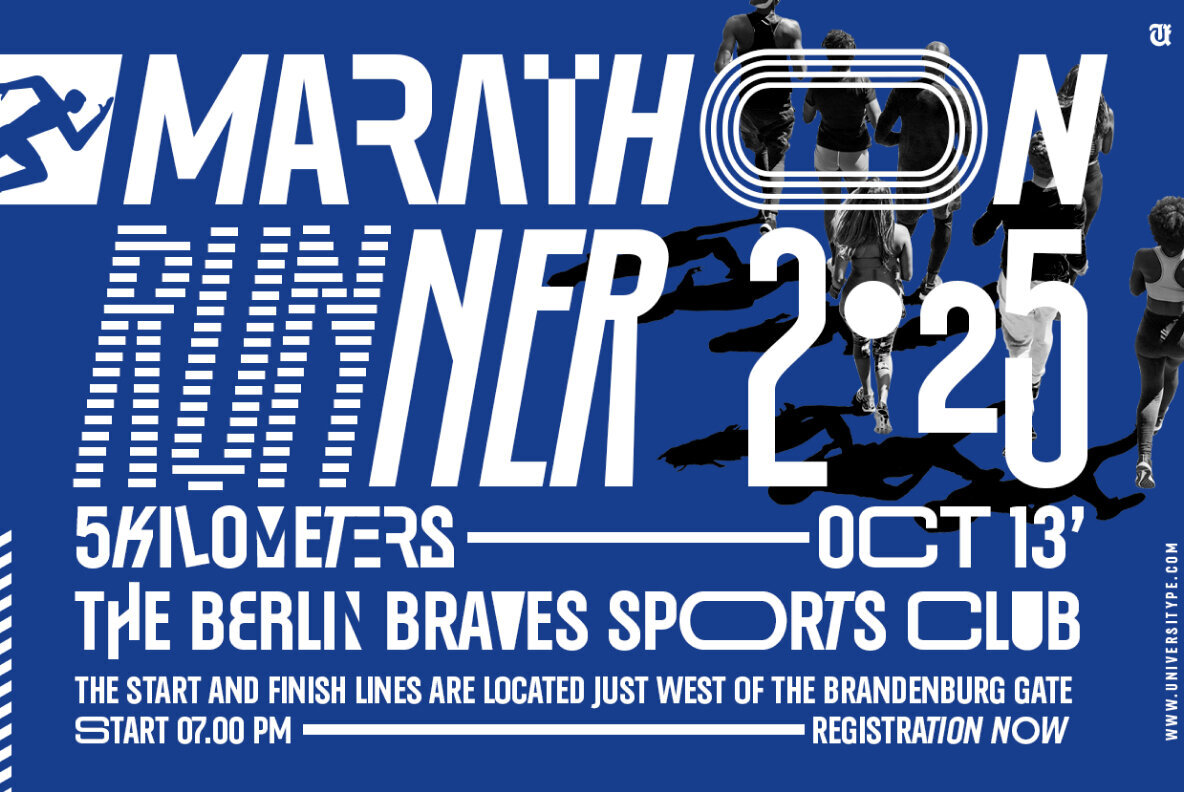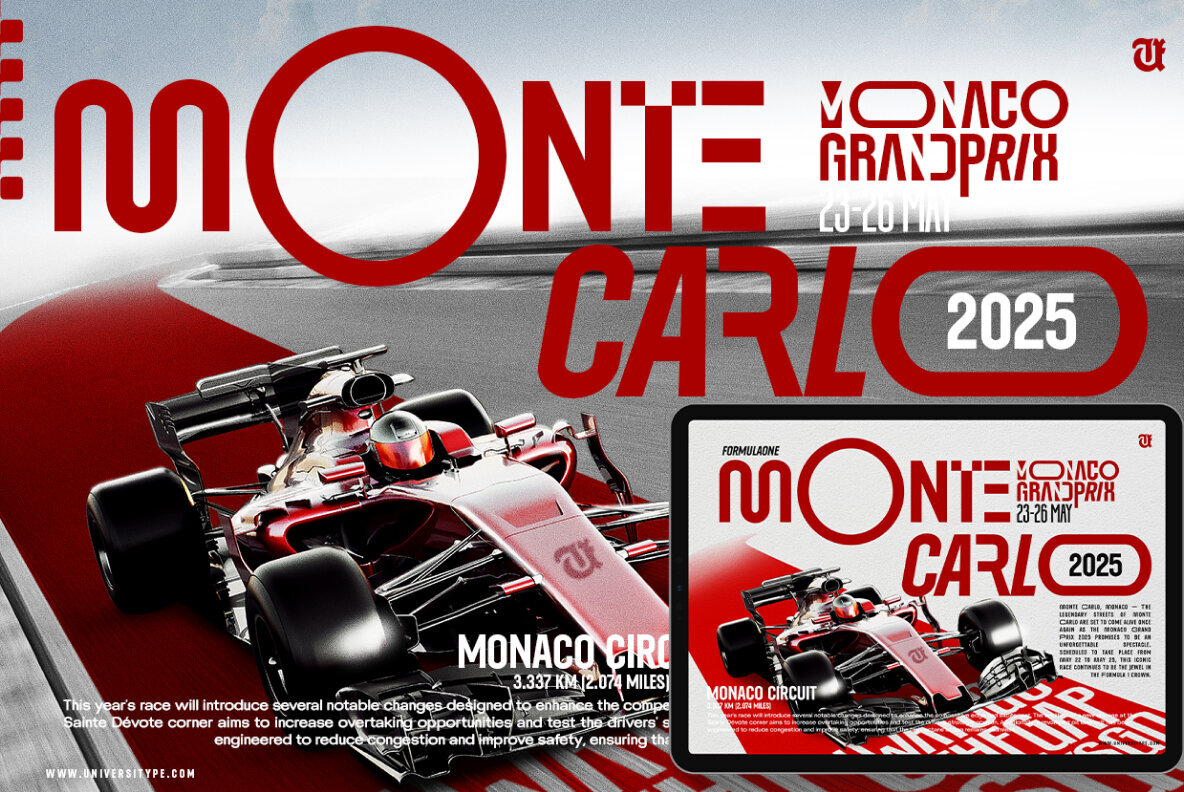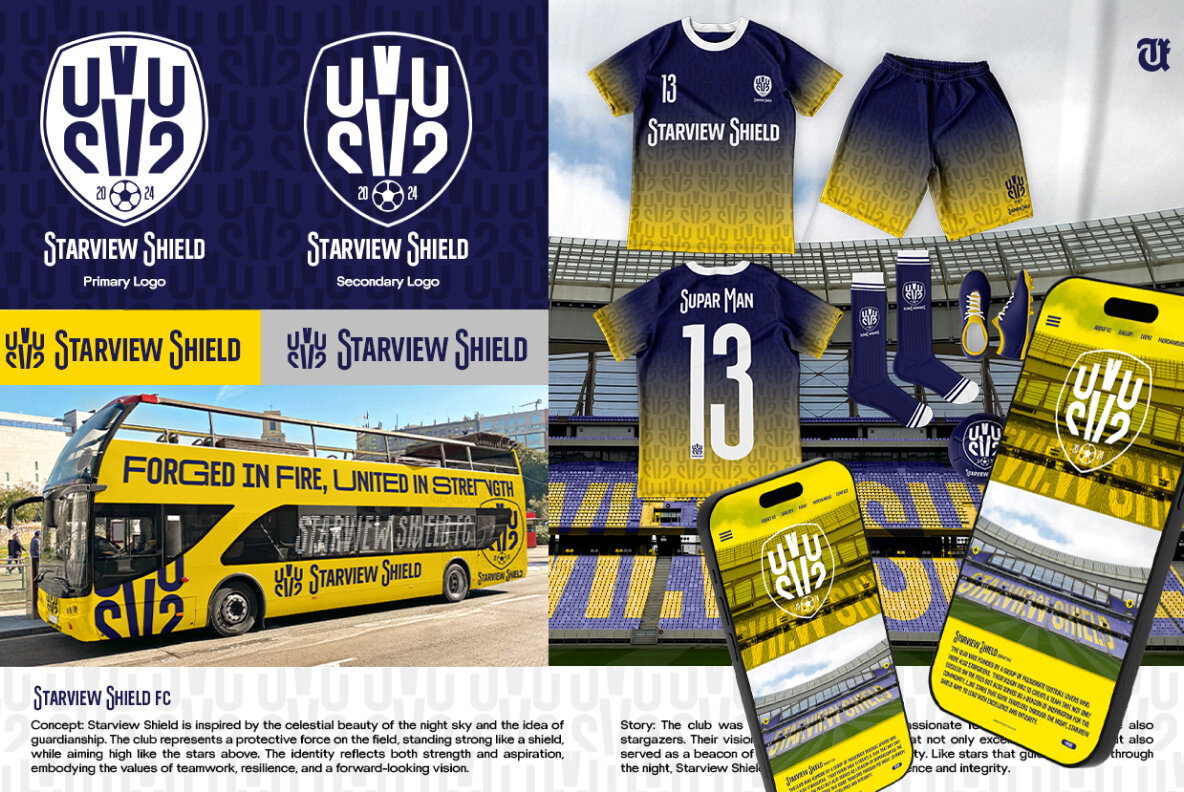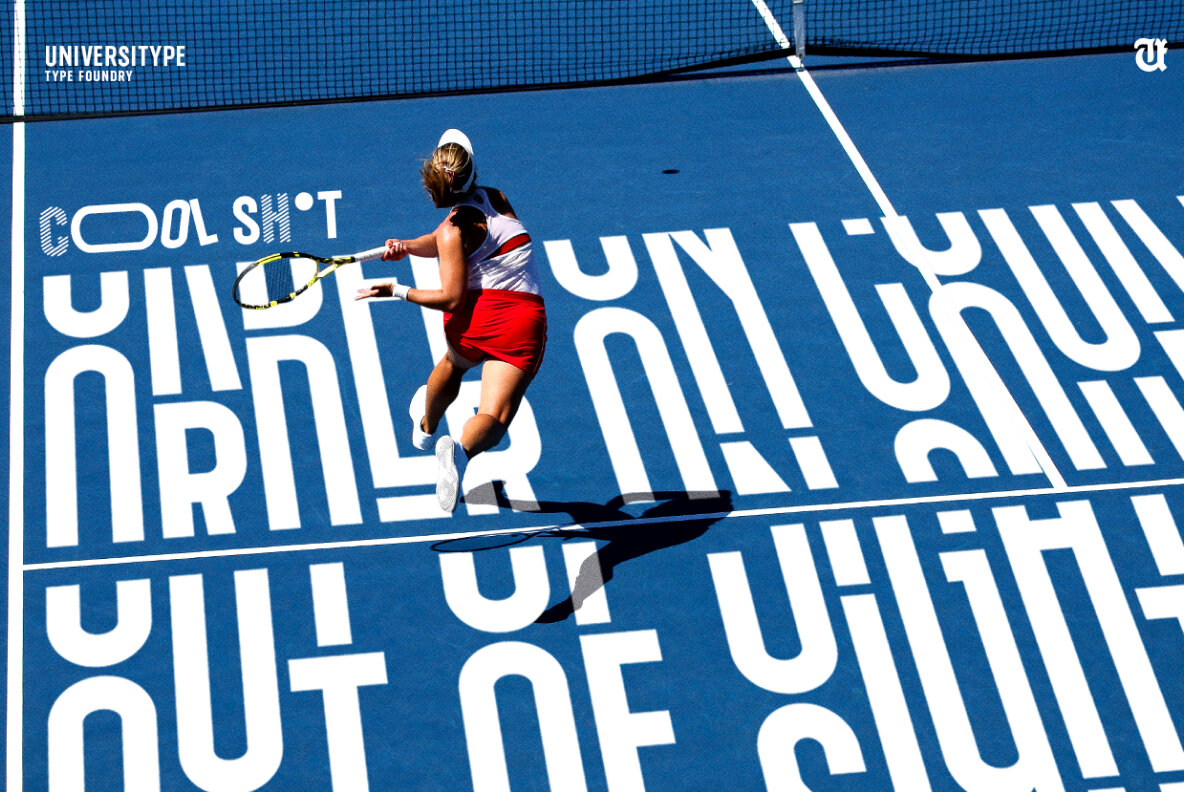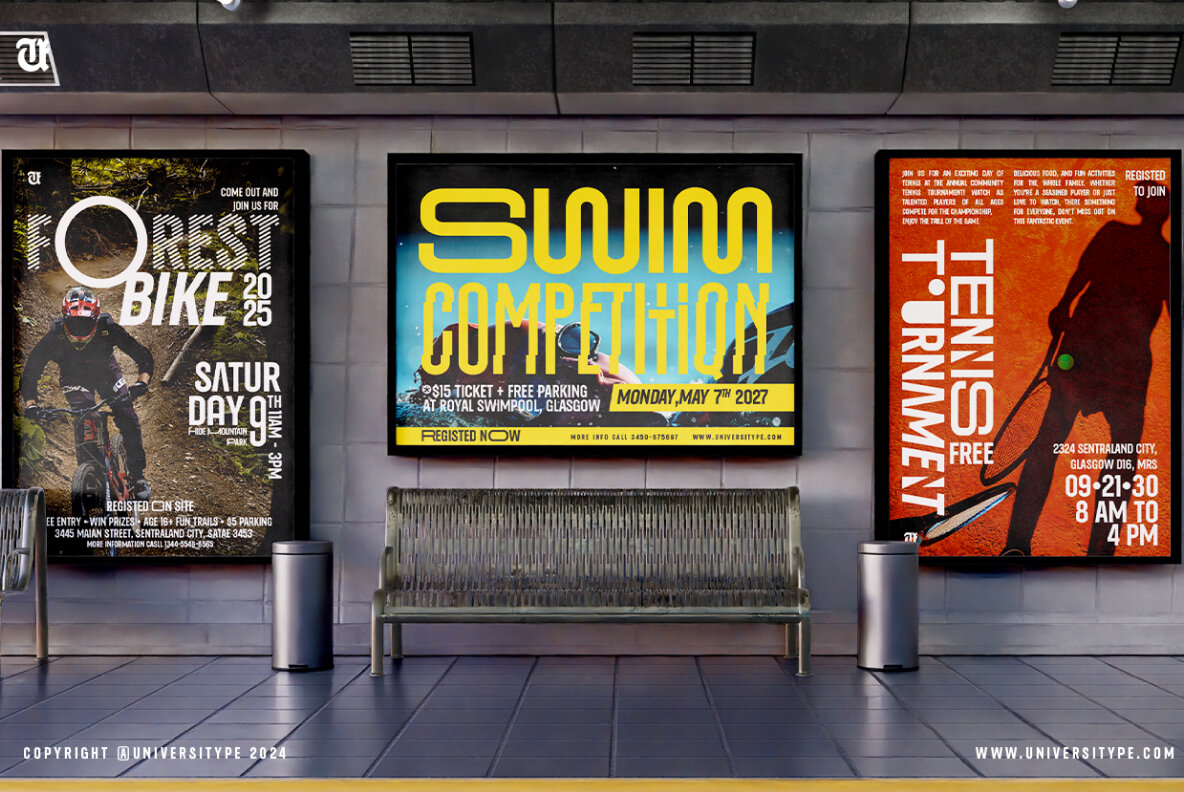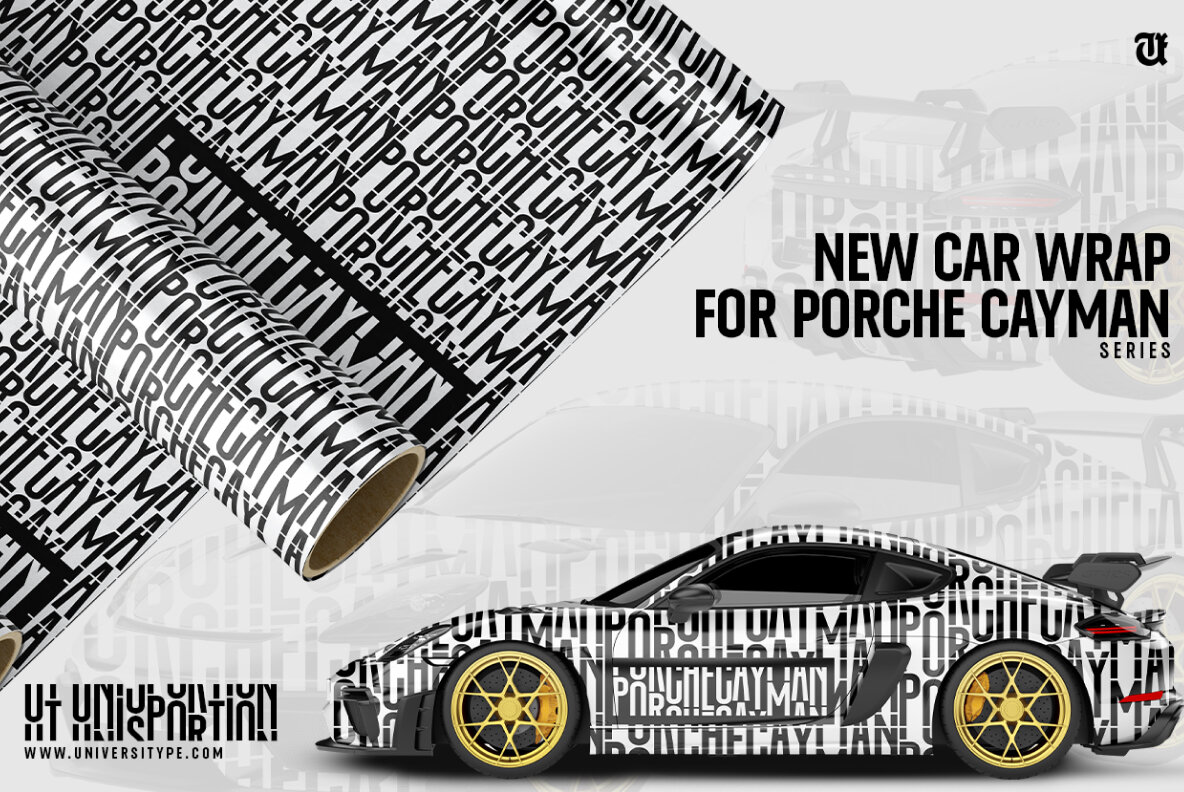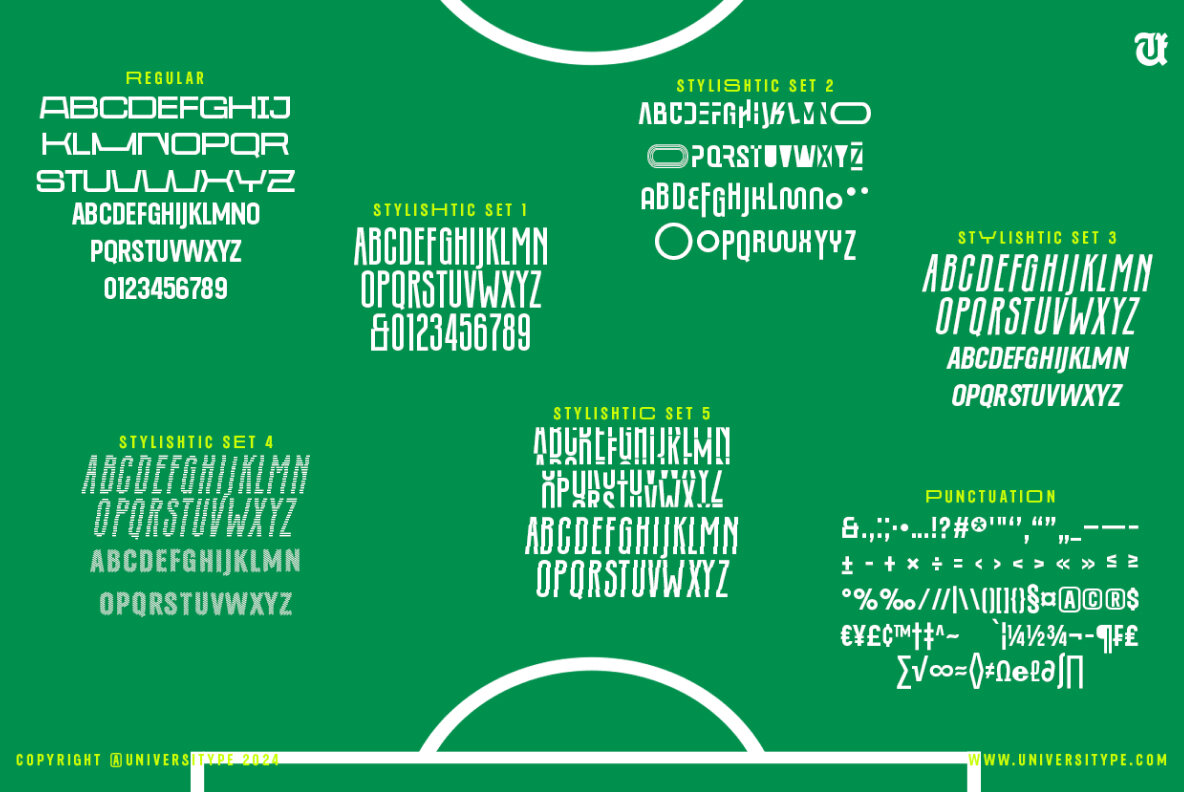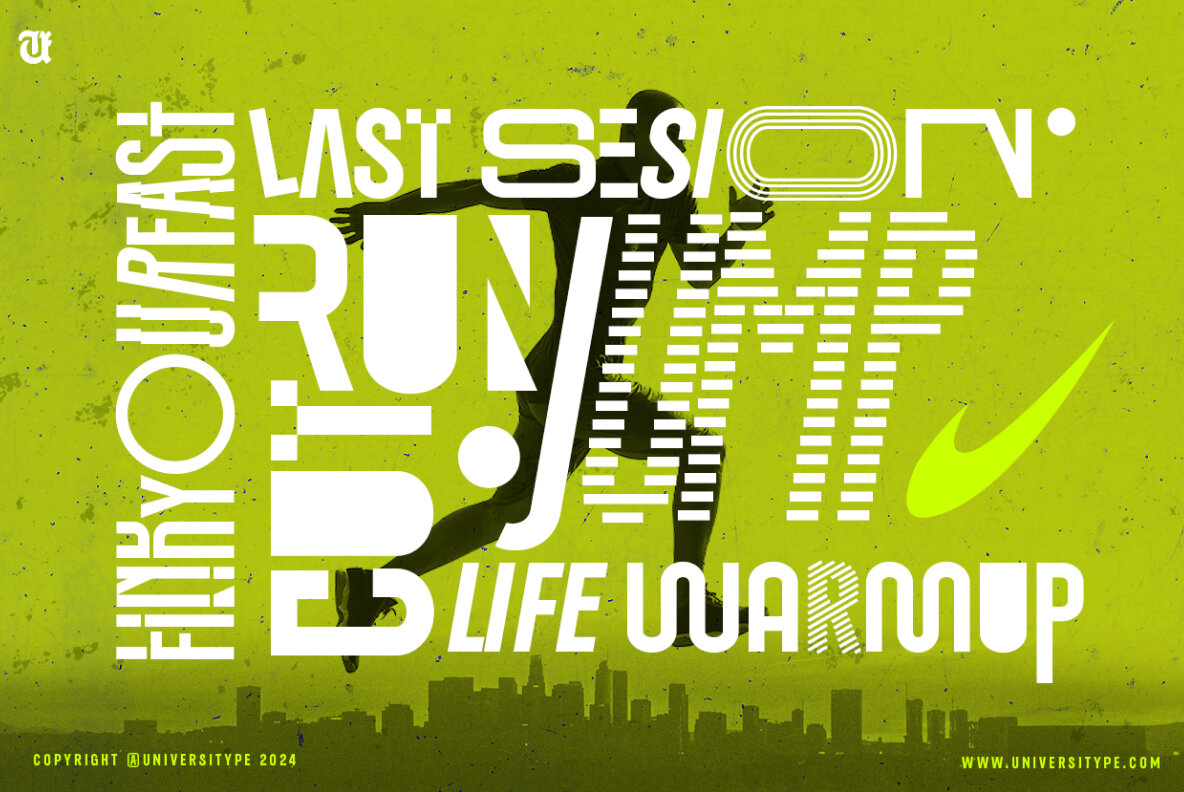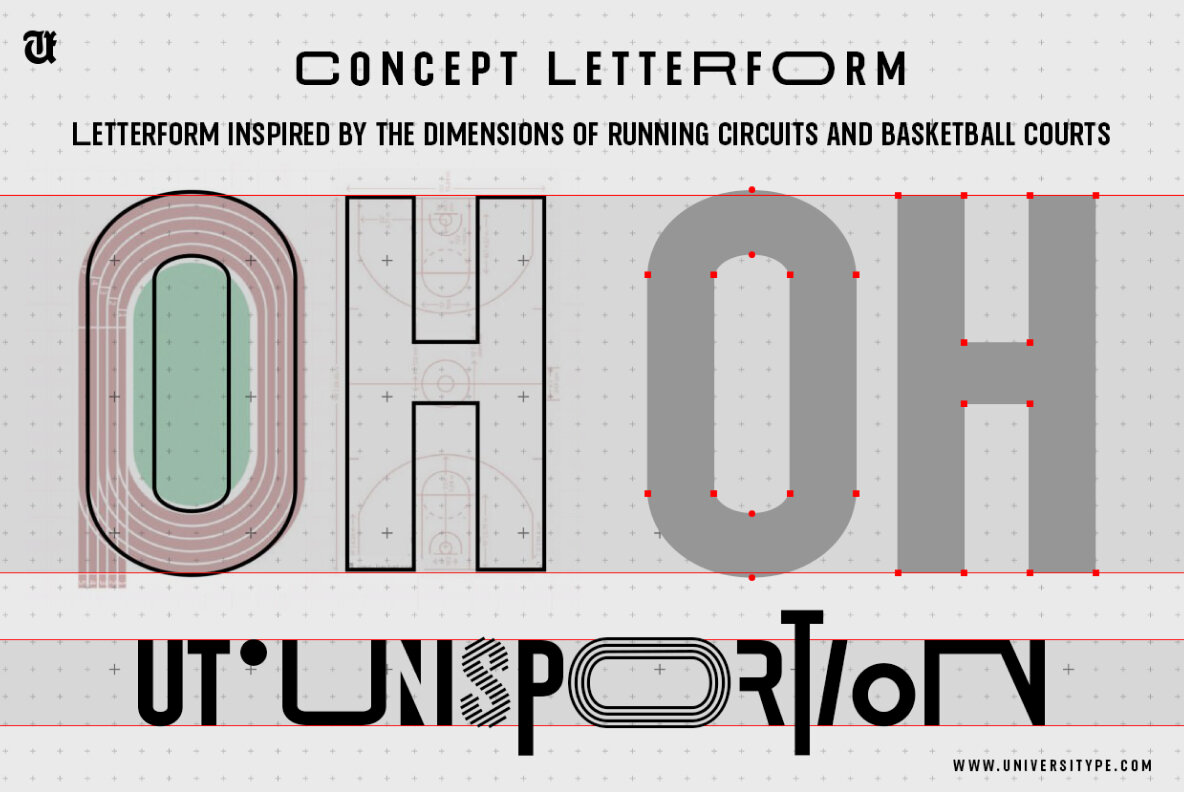
UT Unisportion, a typeface that’s all about victory! This font isn’t just another tool—it’s your teammate in creating dynamic and compelling sports communications. Inspired by the Paralympic spirit, it embodies resilience, strength, and the unyielding determination of athletes. Perfect for any athletic brand eager to make its mark, UT Unisportion brings a bold, dynamic style that emphasizes action and strength, ideal for everything from digital displays to team jerseys. Boost your brand’s presence with UT Unisportion’s striking design. It ensures your brand isn’t just seen—it’s remembered. Its superb readability means your message stays clear and accessible, whether it’s on a billboard or the back of a jersey, connecting with fans and players alike. Plus, its versatility makes it a perfect fit across all your branding platforms, giving everything you do a look of professionalism. Designed specifically with the essence of sports—including Paralympic competitions—in mind, UT Unisportion supports multiple languages and special characters, making it a great pick for international teams and global events. UT Unisportion is ready for everyone, from up-and-coming sports clubs to major athletic apparel lines, and even marketers looking to score big with sports fans. It performs brilliantly across both digital and print, ensuring your message not only lands but sticks. Key Features: Benefits :